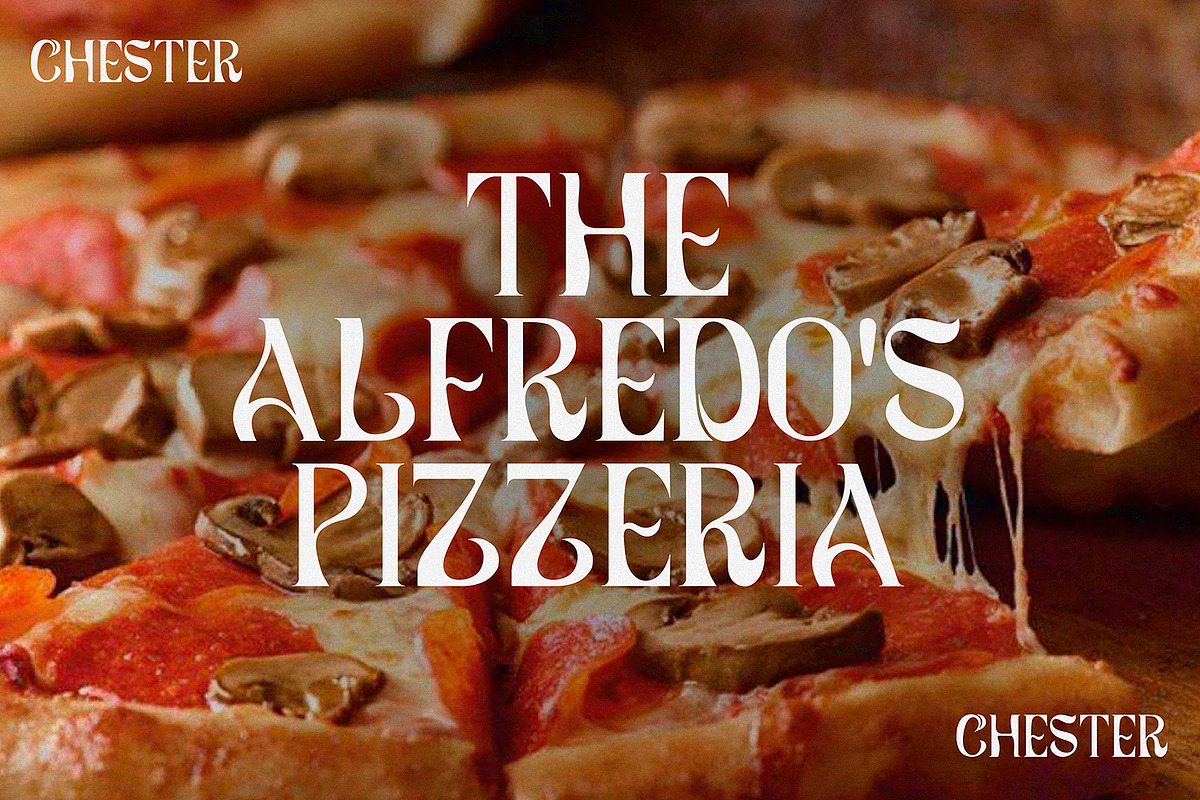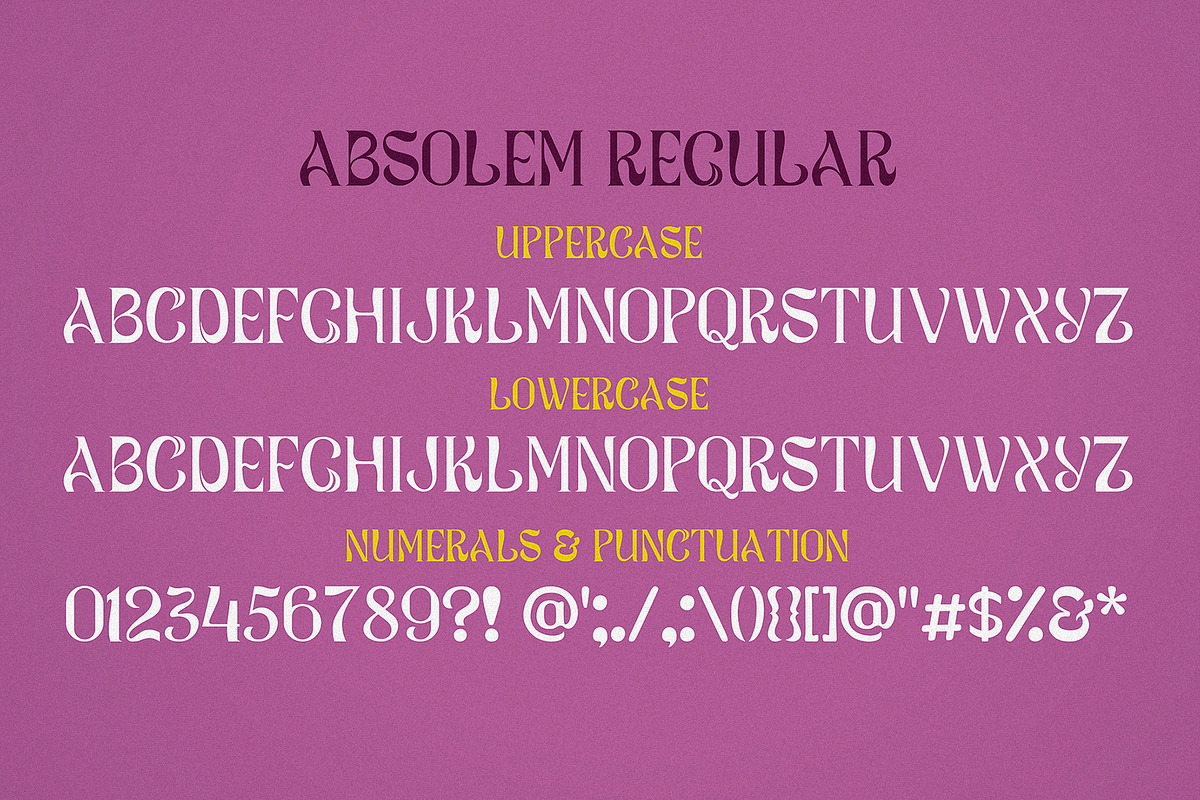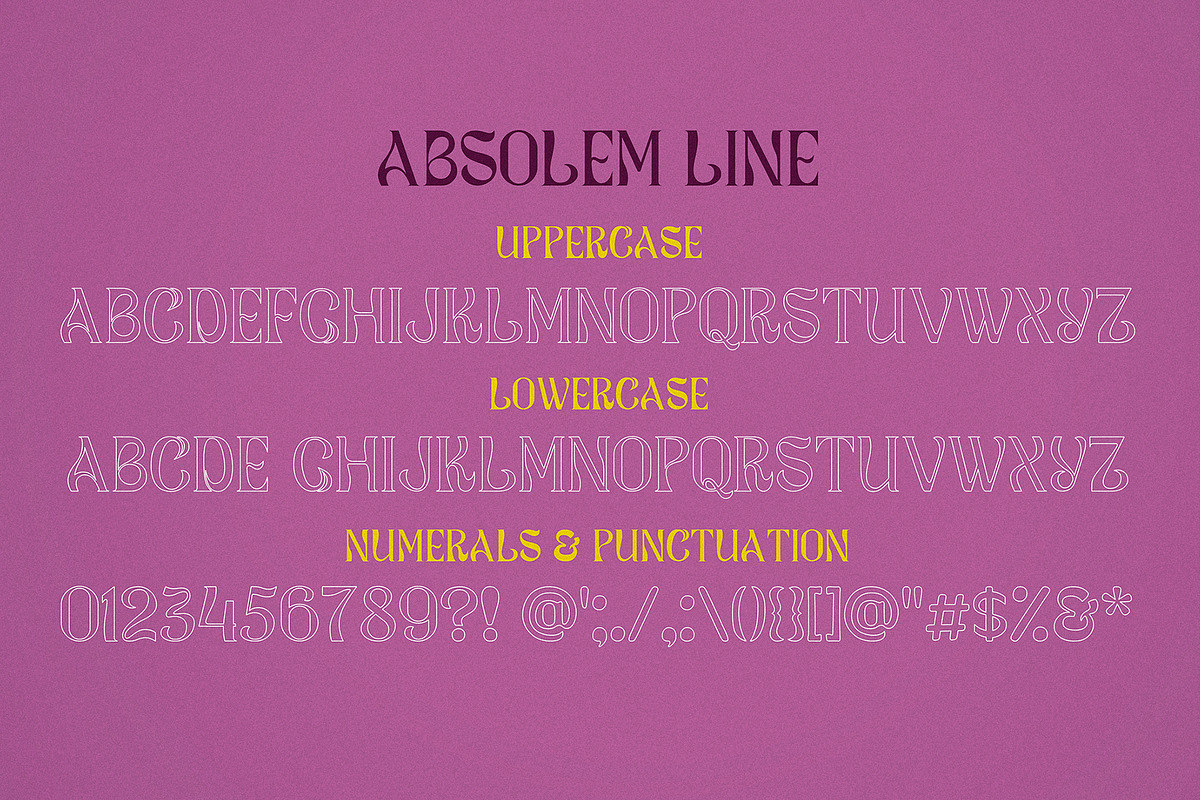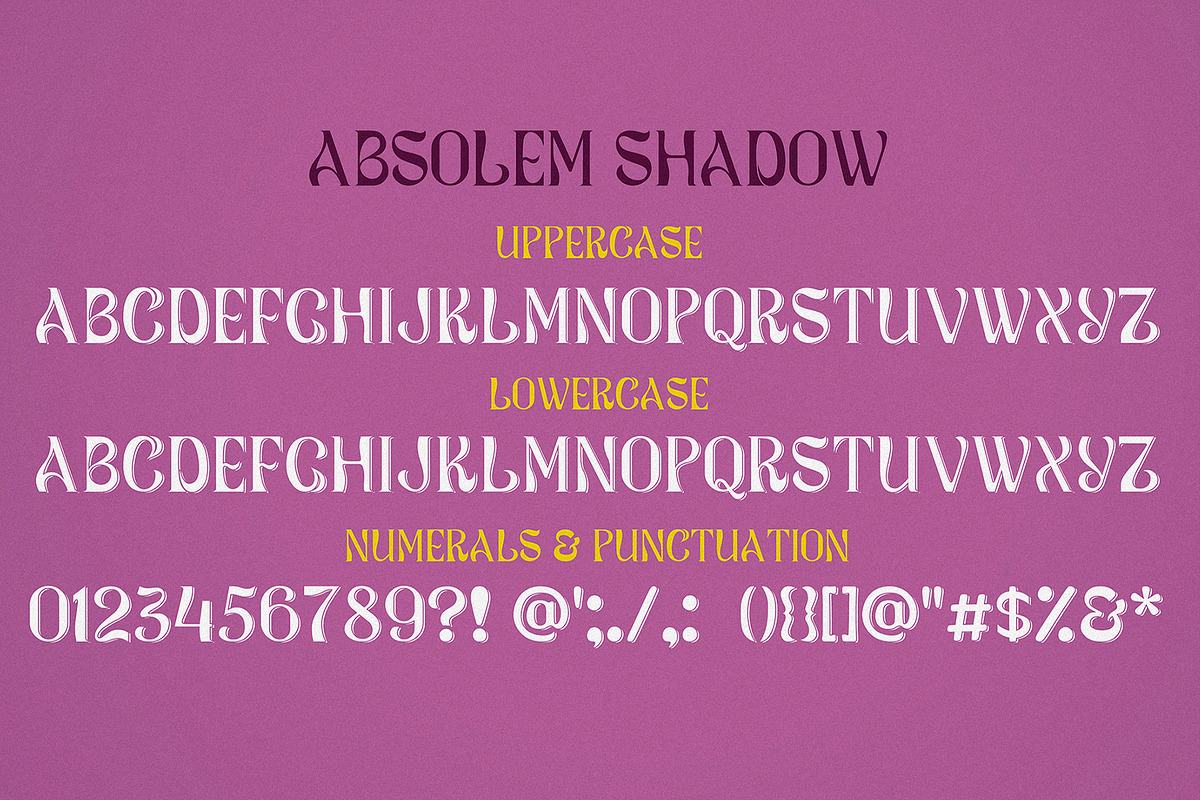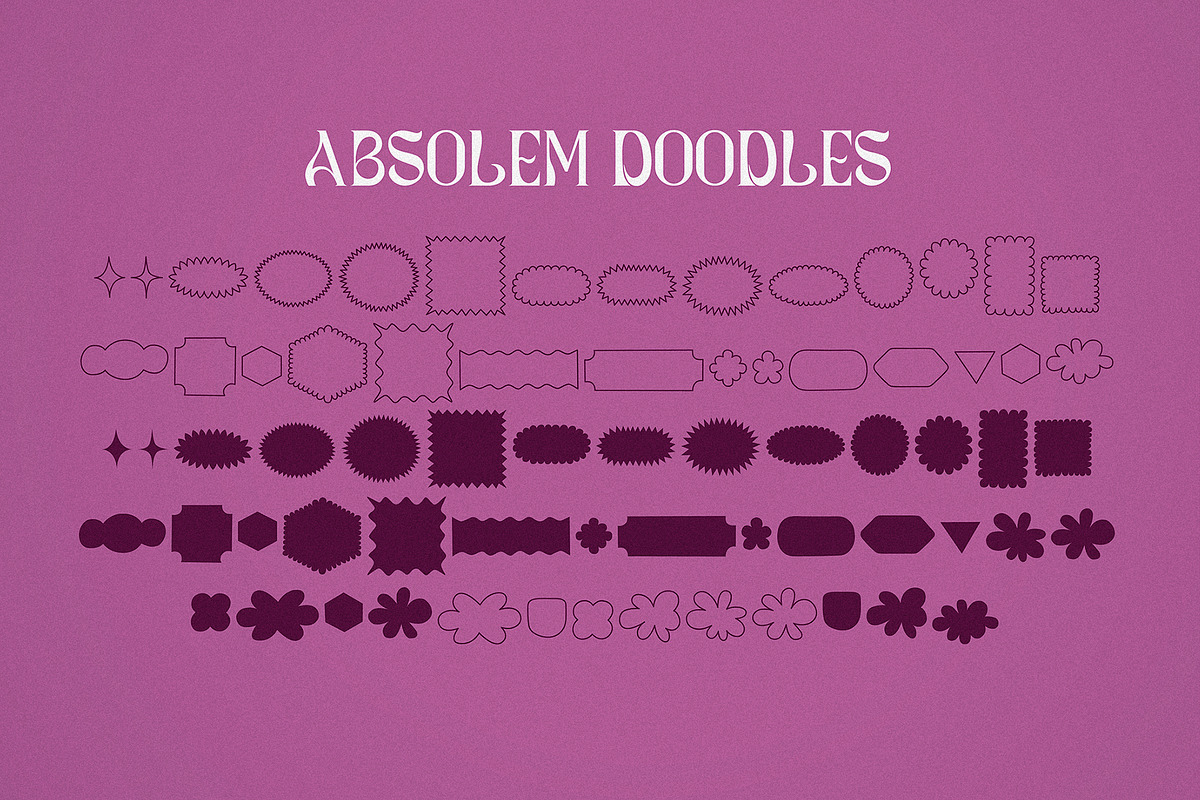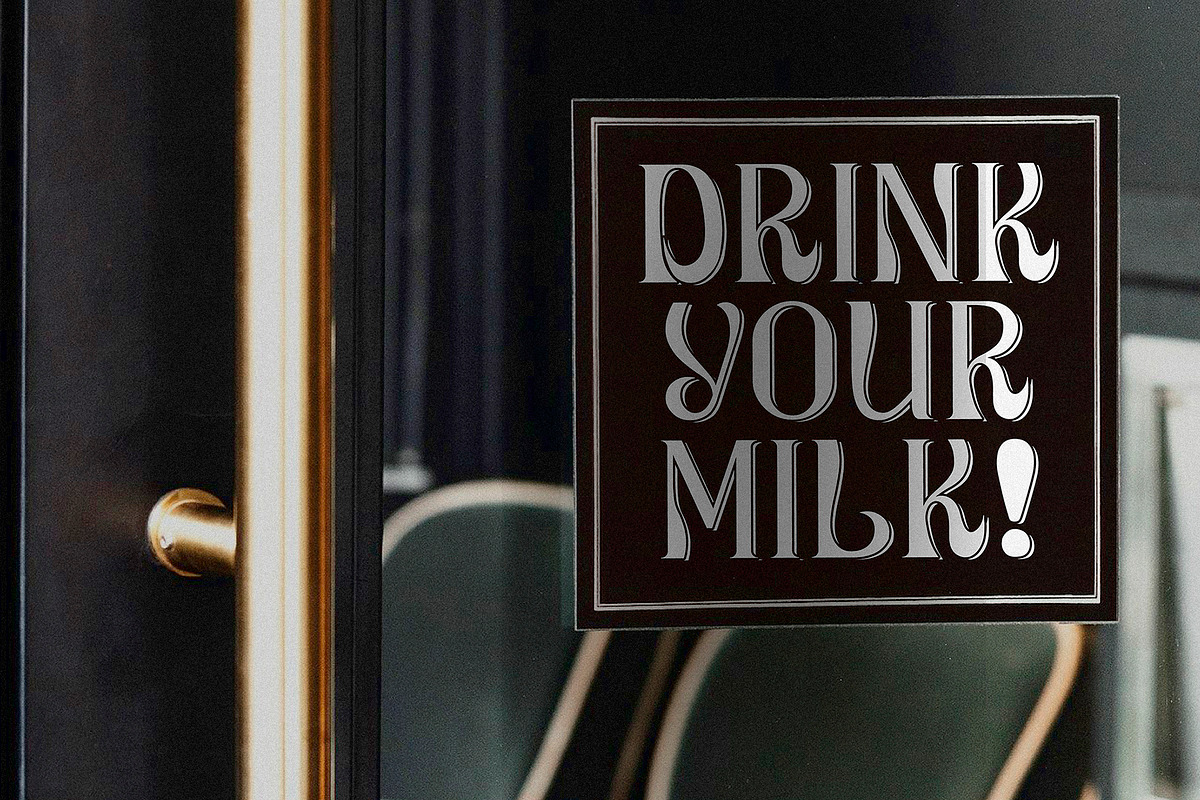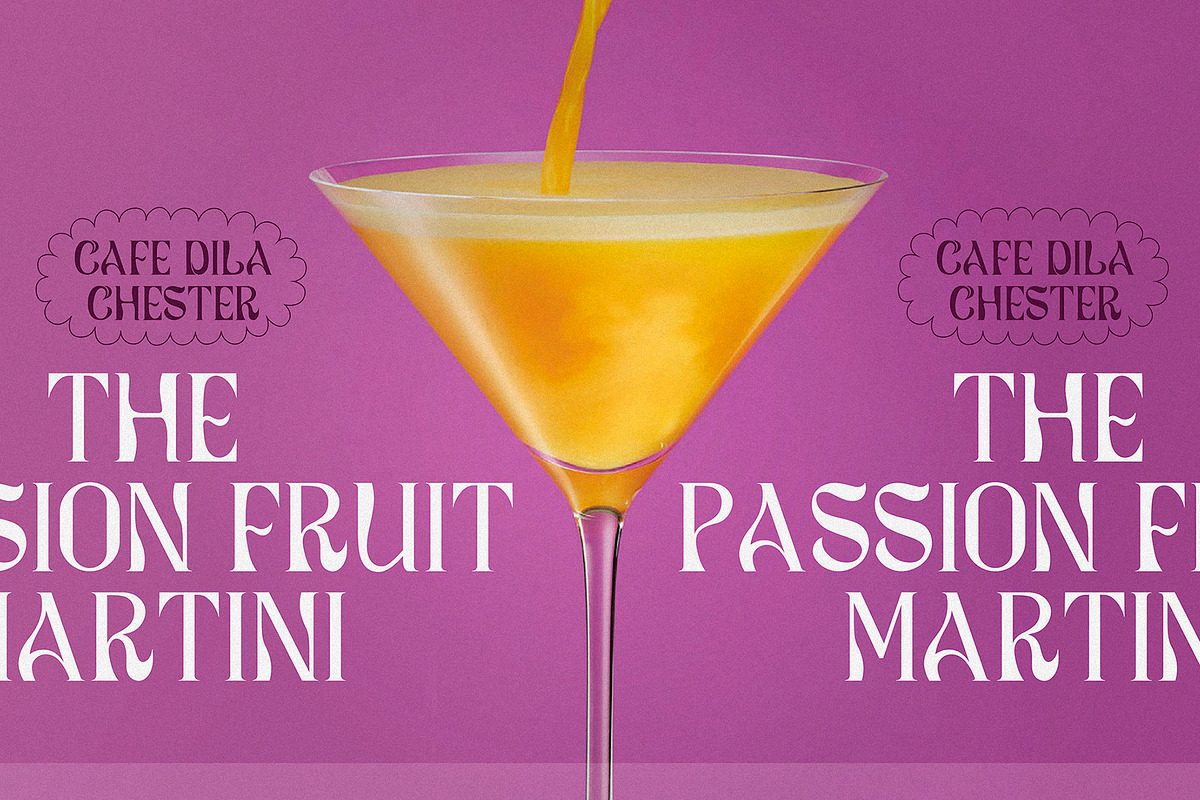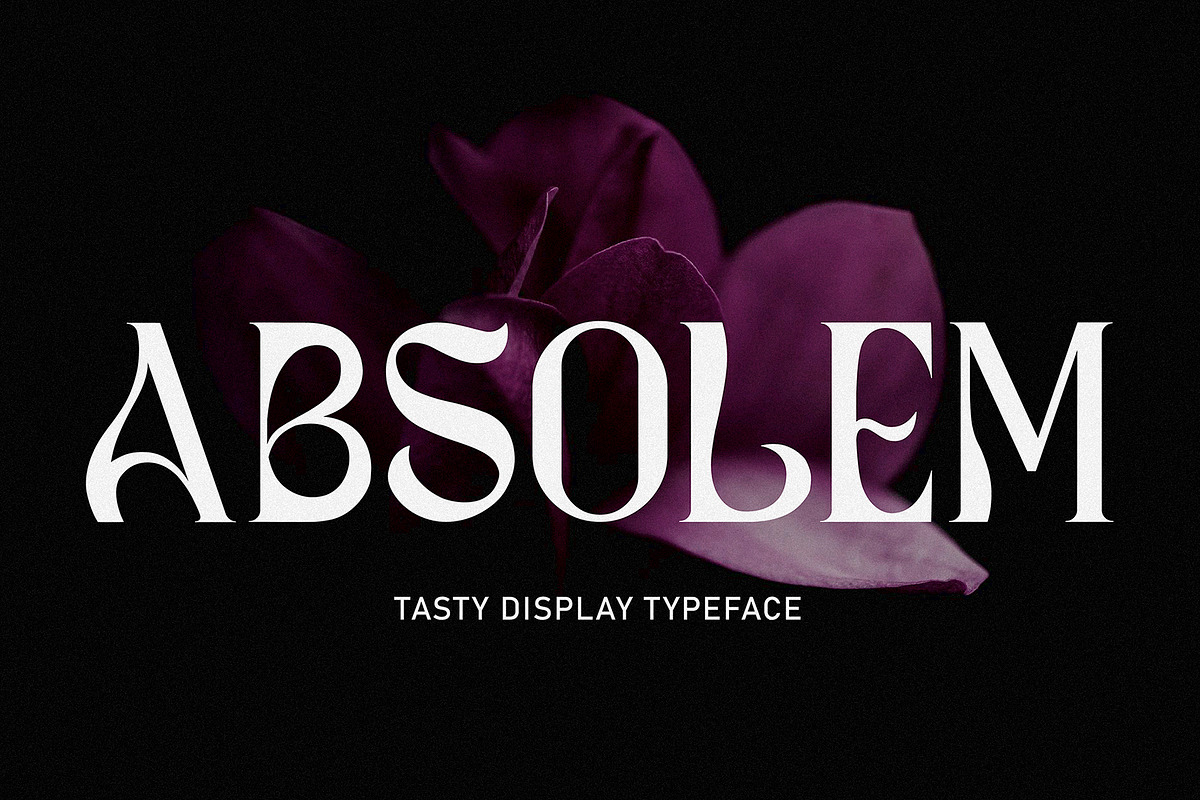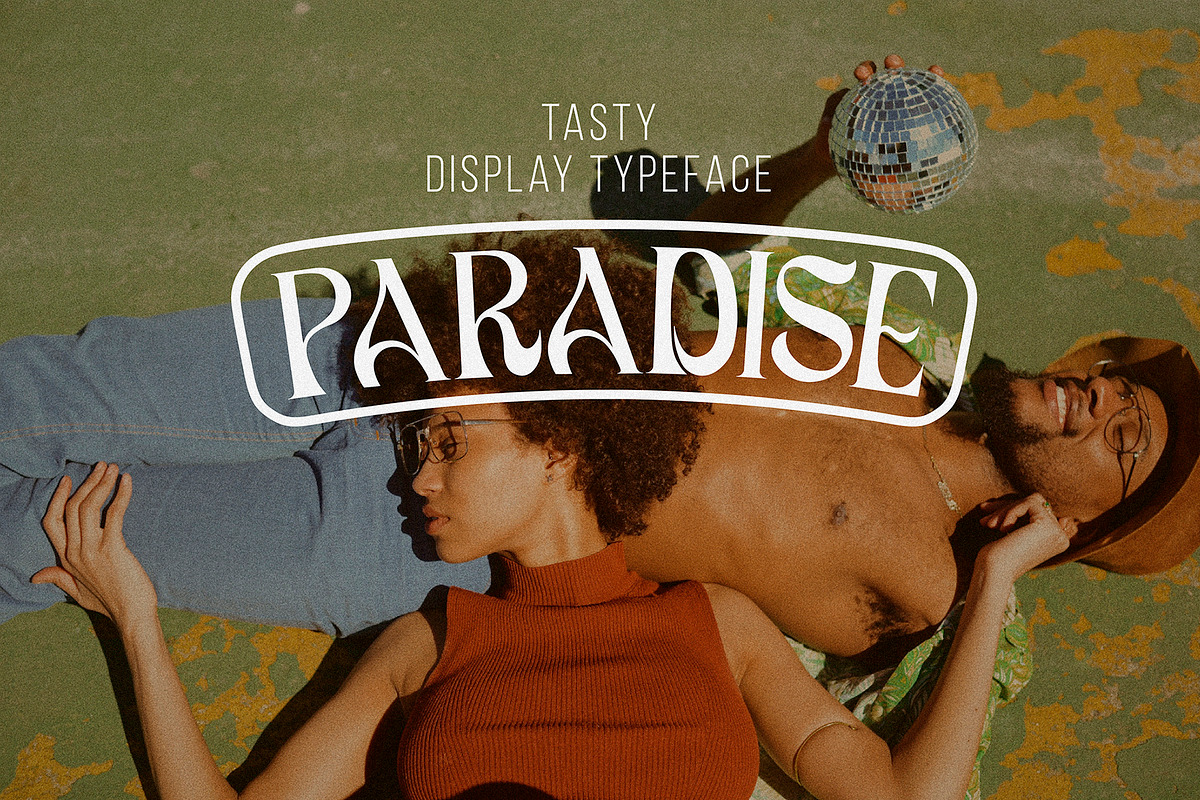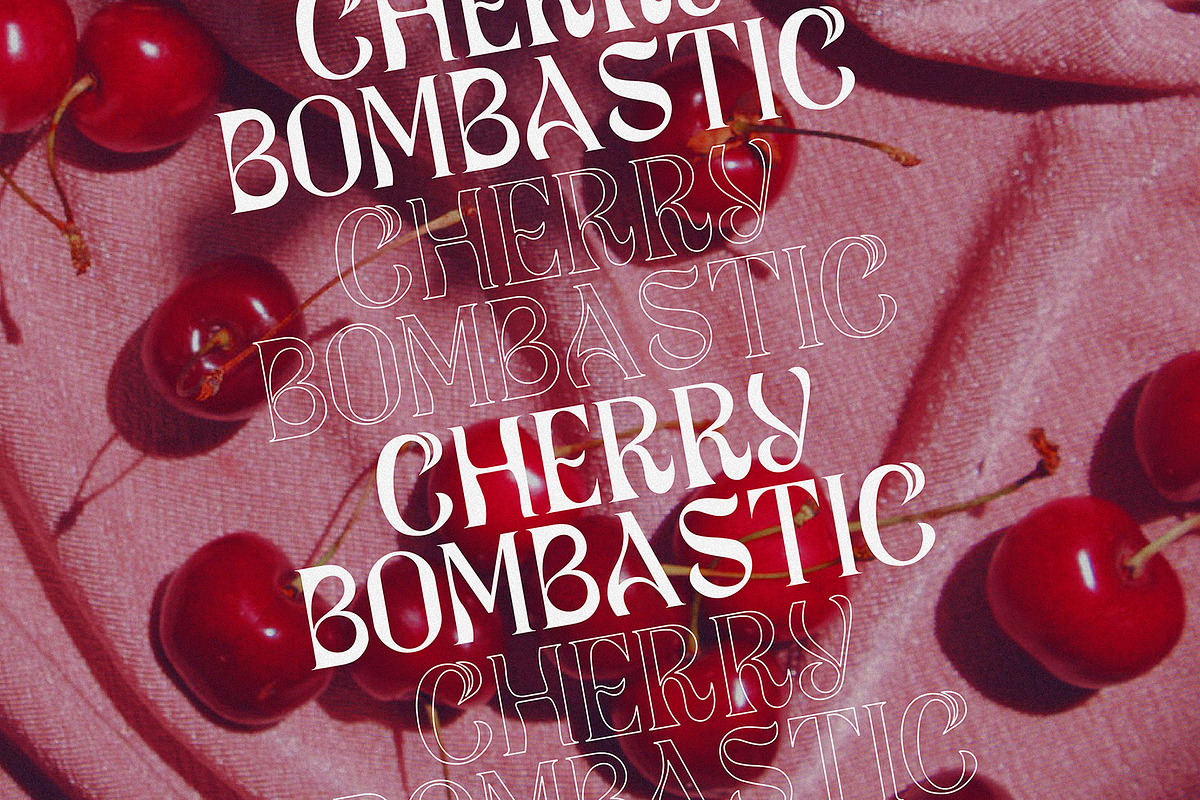
ABSOLEM - Stylish Serif
Say hello to Absolem Tasty Display Typeface! It's happy, it's weird, it's wonderful. Great for any project that needs something a loud and lot avant garde:)
Tasty and sweet, Absolem is a sleek high contrast serif type with. Absolem is excellent for headlines, packaging, posters and any other display use conveying an elegant impression. I invite you to familiarize yourself with the preliminary images and hope that you will be imbued with my vision of this creative font, which, I am sure, will be suitable for all the interesting projects you are working on.
- A-Z; a-z character set;
- numbers and punctuation marks, symbols.